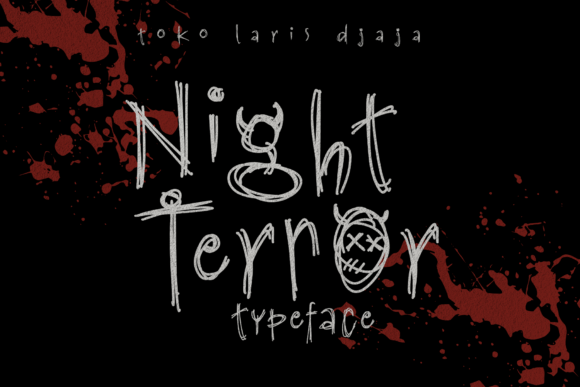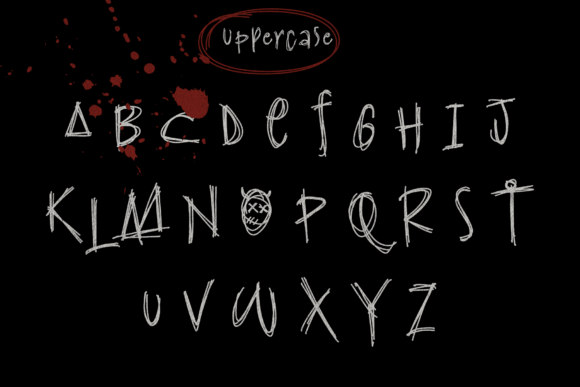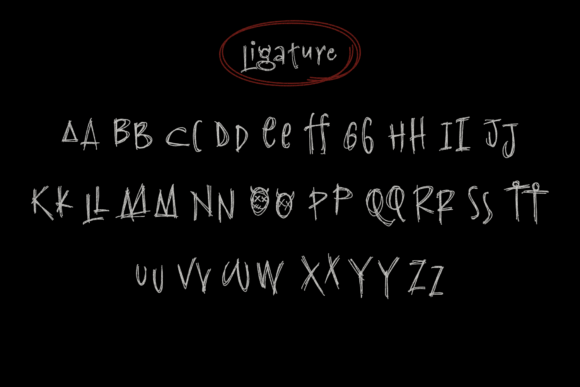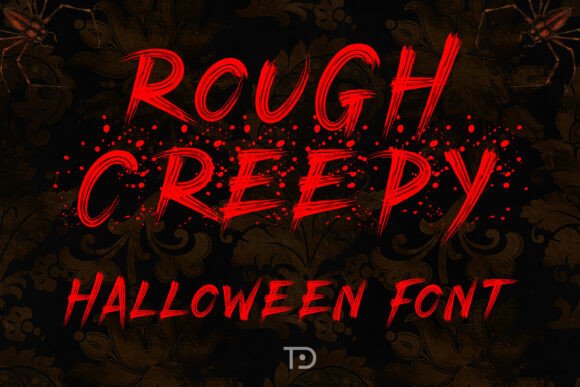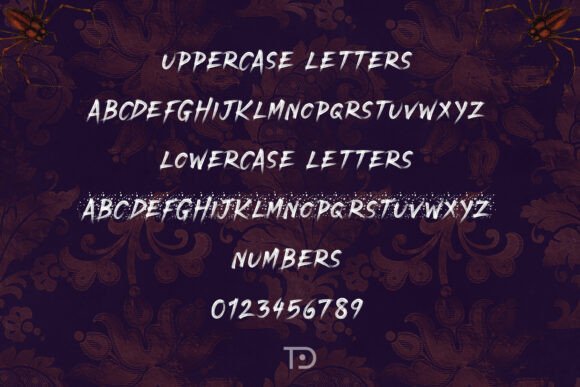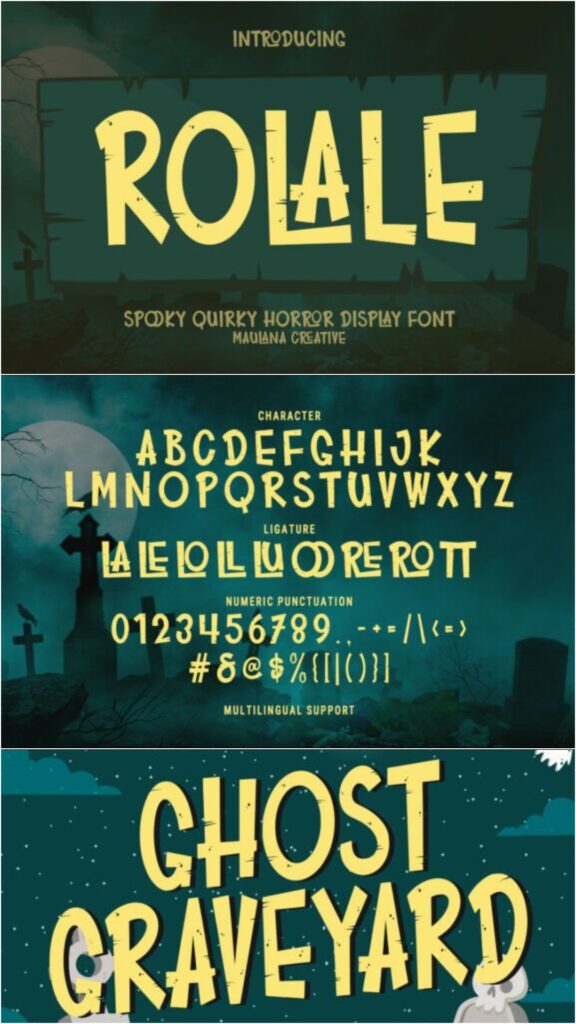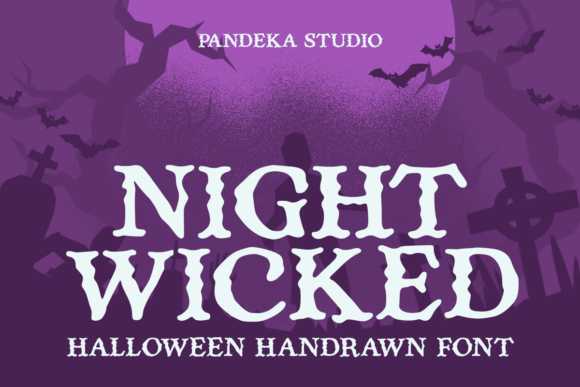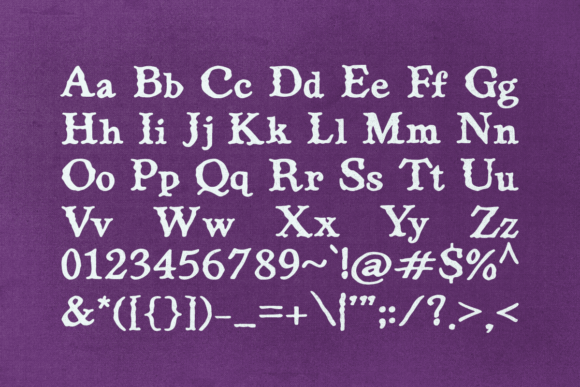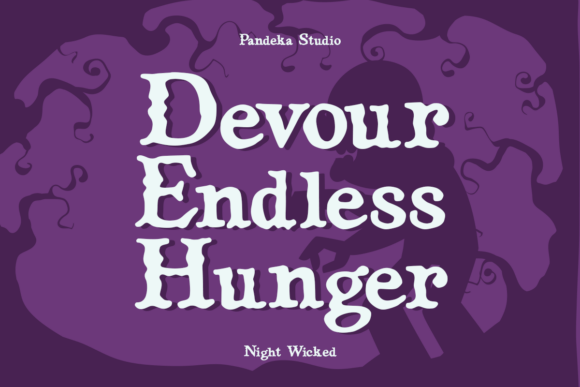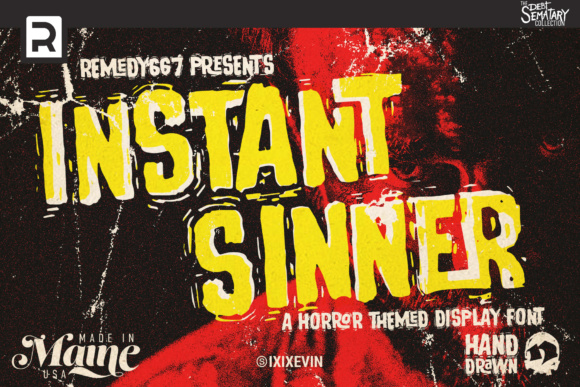
Best Halloween Lettering Fonts for Hand-Drawn Designs
Halloween lettering fonts are most convincing when the letters look slightly imperfect. Uneven baselines, scratchy edges, crooked strokes, and unexpected curves create the handmade tension that polished typefaces often lack. I gathered 34 options that range from frantic horror handwriting to chunky monster lettering, so you can match the typography to the mood of your project.
My selection focuses on fonts that feel drawn, painted, carved, or scribbled rather than mechanically constructed. Some are unsettling enough for horror posters, while others keep the creepy details playful for classroom signs, party invitations, stickers, and family-friendly shirts. Since these are display fonts, I would use most of them for short phrases instead of long paragraphs.
The best Halloween lettering fonts combine readable letter shapes with intentional irregularity. For serious horror graphics, choose scratchy fonts such as Night Terror, Rough Creepy, or Cursed. For playful crafts, try Spooky Monster, Halloween Curly Creepy, or Handwritten Halloween. Keep wording short, enlarge fine details, and test thin strokes before cutting vinyl.
| Font | Best for | Style |
|---|---|---|
| Gothic Horror | Vintage horror posters | Distressed display |
| Night Terror | Psychological horror titles | Panicked handwriting |
| Rough Creepy | Haunted-house graphics | Scratchy bold display |
| Rolale | Quirky spooky branding | Carved hand-drawn display |
| Night Wicked | Gothic invitations | Crooked Halloween display |
| Instant Sinner | Retro horror merchandise | Handmade terror font |
| Freaky Spooky | Bold seasonal headlines | Jagged brush display |
| Halloween Creative | Vintage party posters | Distressed hand-drawn display |
| Happy Scary Halloween | Dripping horror designs | Rough melting display |
| Handwriting Blood | Crime and slasher graphics | Jagged handwriting |
| Cursed | Occult-inspired titles | Horror handwriting |
| Spooky Gravestone | Cemetery signs | Lanky carved lettering |
| Spiders Web | Decorative Halloween titles | Web-filled alphabet |
| Halloween Carve | Skinny horror headlines | Carved display |
| Master of Horror | Simple Halloween crafts | Casual handwriting |
| Halloween Script | Elegant spooky invitations | Flowing handwritten script |
| Halloween Curly Creepy | Playful party signs | Curly handwriting |
| Creepy Sneaky | Kids’ Halloween crafts | Playful handwritten display |
| Creepy October | October-themed apparel | Spooky handwriting |
| The Creepy | Party decorations | Irregular display |
| Spooky Time | Invitations and labels | Playful handwritten display |
| Handwritten Halloween | Modern seasonal crafts | Monoline handwriting |
| Spooky House | Friendly haunted designs | Bold handwritten display |
| Spooky Monster | Children’s monster projects | Quirky hand-drawn display |
| Night Fall Spooky | Readable Halloween shirts | Chunky hand-drawn display |
| Beastly Halloween | Monster-themed merchandise | Bold curved display |
| Scary Girls | Whimsical spooky graphics | Hand-drawn Halloween display |
| Freaky Halloween | Decorative accents | Halloween dingbats |
| Spooky Scary | Casual craft projects | Playful handwriting |
| Cute Horror | Creepy-cute products | Handwritten horror font |
| Friday Horror | Slasher-inspired designs | Rough handwriting |
| Horror Halloween | Dark seasonal artwork | Handwritten horror display |
| Halloween Nightmare | Nightmare-themed posters | Disturbed handwriting |
| Hello Halloween | Friendly spooky stationery | Whimsical handwriting |
How I Picked These
I compared these options by how well they fit the article’s intended use, including readability, visual character, practical versatility, distinctive features, and how clearly each choice differs from the rest of the roundup. I prioritized options that solve a specific design need rather than simply adding more similar-looking products.
How I Picked These Creepy Lettering Fonts
I prioritized lettering with visible handmade character: rough contours, irregular spacing, crooked terminals, brush texture, or illustrated details. I also considered how clearly each font communicates at headline size, since atmospheric lettering still needs to be readable on invitations, signs, shirts, and product packaging.
Best Halloween Lettering Fonts for Hand-Drawn Designs
1. Gothic Horror
Gothic Horror is a distressed display font for designers who want the atmosphere of an old horror-film poster. Its jagged ink edges and uneven handmade forms create menace without turning every character into an unreadable shape, making it especially useful for titles and short promotional phrases.
I like this one for designs that need genuine tension rather than cartoon Halloween energy. The worn texture should reproduce strongly in large print, although tiny lettering may lose some of its rough edge detail. Pair it with a plain condensed sans serif for dates, addresses, or supporting information.
How many fonts should I combine in one Halloween design?
Most Halloween designs need only two fonts: one expressive display font for the main phrase and one simple font for supporting text. This creates a clear hierarchy while preventing multiple distressed, dripping, or irregular styles from competing for attention. A third font may be useful for a small accent, but it should introduce a distinct role rather than another version of the same spooky effect. Repeating one headline font across the project also makes invitations, signs, and labels feel coordinated.